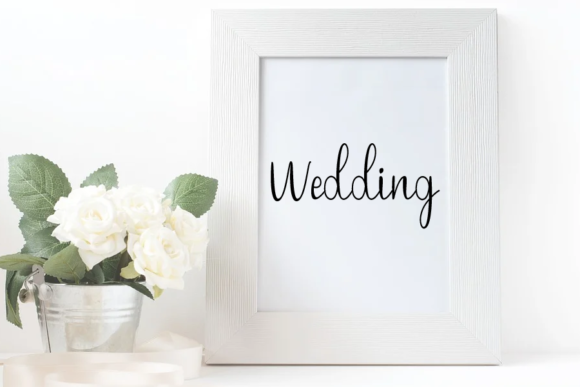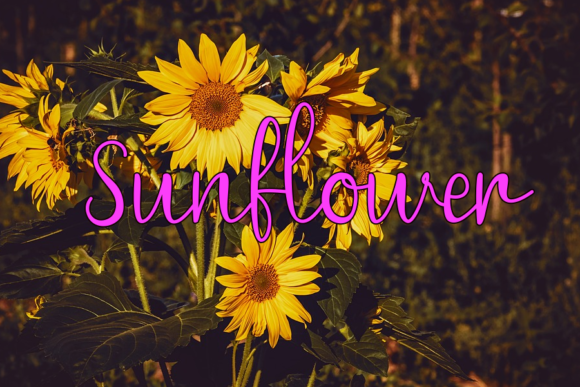
Simple Signature Font
db-ku.com - Script & Handwritten -- Simple Signature is a dainty and unique script font. Add this romantic and lovely looking font to each of your love letters, wedding invitations or favorite design ideas, and you will be astounded by the outcome.